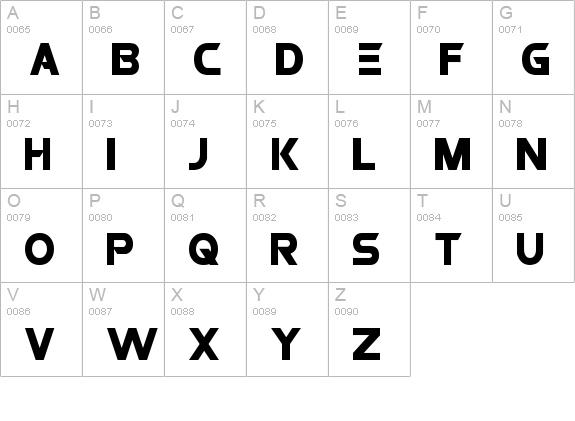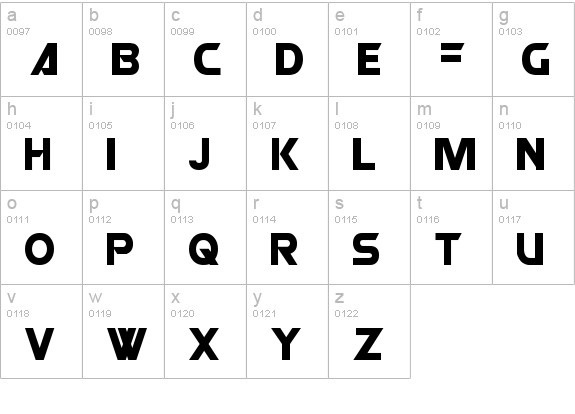
ROBO Font Details
Introducing ROBO font, a modern and stylish typeface that will take your designs to the next level. This versatile font is perfect for a wide range of projects, from branding and advertising to social media graphics and website design. With its clean lines and sleek appearance, ROBO font exudes a sense of sophistication and professionalism. Best of all, ROBO font is completely free to download at FontsMarket.com. That's right, you can enhance your creative projects with this high-quality font without spending a dime. Don't miss out on this incredible opportunity to elevate your designs with ROBO font. Download it today and see the difference it can make in your work!